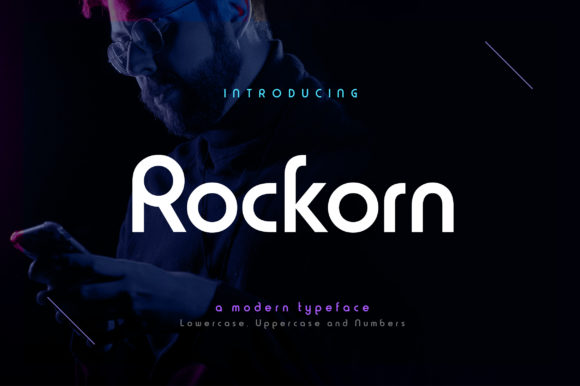
Unleash the Power of Boldness with Rockorn Sans Serif Font: The Epitome of Strength and Style
In a world saturated with monotony, dare to break free with Rockorn Sans Serif, a font family born to ignite your creative fire. Experience the raw energy of bold typography that commands attention and leaves an indelible mark. Let your designs roar with confidence and individuality, capturing the essence of strength and resilience with every letterform.
Rockorn Font: The Ultimate Expression of Strength and Style
Meet Rockorn, a sans serif font that embodies strength, stability, and unwavering presence. Its clean lines and robust structure convey a sense of power and authority, making it the perfect choice for creating impactful designs that demand attention. Whether you're crafting bold headlines, dynamic logos, or eye-catching posters, Rockorn stands as a steadfast companion, elevating your designs to new heights of impact and memorability.
A Font for All Creative Endeavors
With its innate versatility, Rockorn seamlessly adapts to a vast spectrum of creative projects. Unleash your imagination and witness how effortlessly it transforms logos into timeless emblems, brochures into persuasive masterpieces, and T-shirts into wearable statements of individuality. Rockorn is your ultimate creative ally, empowering you to manifest your boldest visions without limits.
The Perfect Font for Bold T-Shirts: Make a Statement, Leave a Legacy
In the realm of self-expression, few garments hold the same power as a bold T-shirt. With Rockorn Sans Serif as your design companion, you can create T-shirts that speak volumes, conveying messages of strength, confidence, and unwavering determination. Whether you're designing for yourself, your brand, or a special occasion, Rockorn empowers you to create T-shirts that turn heads and leave a lasting impression.
Discover the Rockorn Advantage: Unleash Your Creative Potential
Indulge in a font experience like no other with Rockorn Sans Serif. This meticulously crafted font family offers an array of benefits that will elevate your design projects to new heights:
- Bold and captivating: Make a statement with bold typography that demands attention and leaves a lasting impression.
- Versatile and adaptable: Seamlessly adapt Rockorn to a wide range of creative projects, from logos and brochures to T-shirts and more.
- Perfect for T-shirts: Create bold and impactful T-shirt designs that convey messages of strength, confidence, and unwavering determination.
- Extensive character set: Access a comprehensive character set that supports a wide range of languages, ensuring global appeal for your designs.